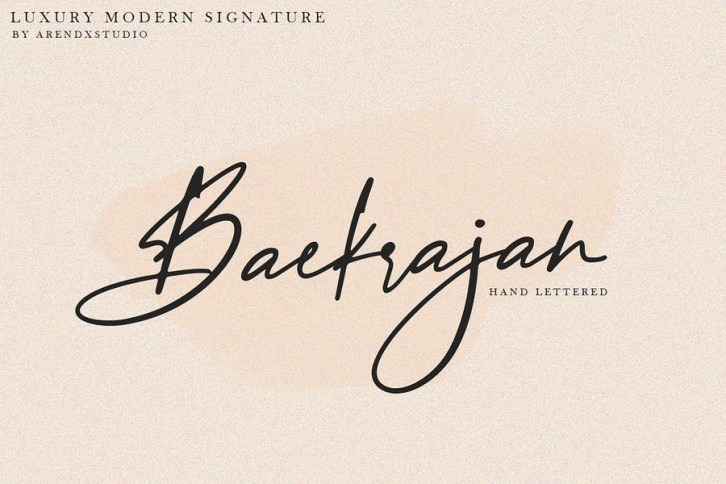
Baekrajan Luxury Modern Signature that is luxurious in a casual and distinctive style that is perfect for your branding design, and will also be very beautiful in your wedding invitations and business cards and especially for your brand name logotype
Baekrajan Luxury Modern Signature has beautiful Uppercase and Lowercase, figures and ligature standards that are very realistic